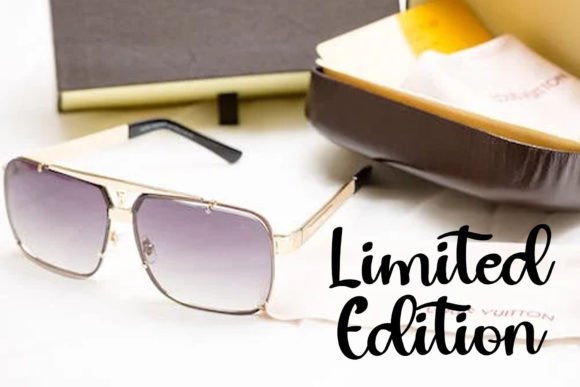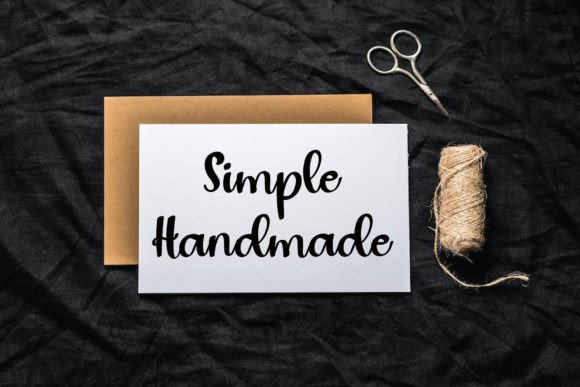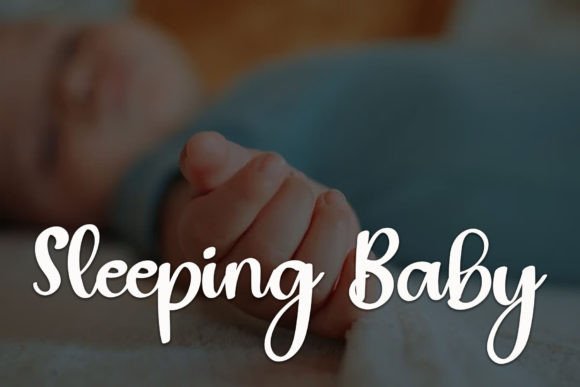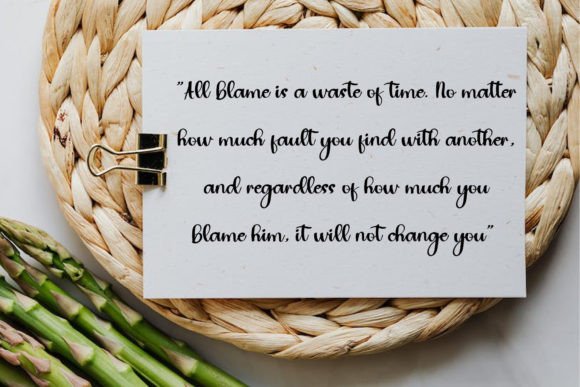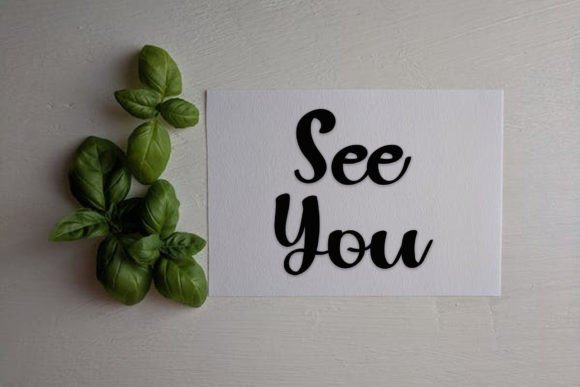
Brainly Font: Elevate Your Designs with a Timeless Classic
Are you tired of using the same old fonts in your designs? Look no further than Brainly Font, a stylish handwritten font that brings a touch of elegance and sophistication to any project. Inspired by timeless classic calligraphy, Brainly Font is a contemporary and impeccably formed font that is sure to enhance the beauty of your designs.
What Makes Brainly Font Special?
Brainly Font is a carefully crafted font that boasts a balanced and varied design. Its unique blend of classic and modern elements makes it perfect for a wide range of projects, from branding and advertising to packaging and digital media. With its PUA (Private Use Area) encoding, Brainly Font gives you easy access to a vast array of glyphs and ligatures, allowing you to add an extra layer of creativity and flair to your designs.
The Inspiration Behind Brainly Font
Brainly Font draws inspiration from the world of classic calligraphy, where the art of beautiful handwriting is revered. The font’s design is rooted in traditional calligraphic techniques, yet it has been carefully adapted to meet the demands of modern design. The result is a font that is both timeless and contemporary, with a unique character that sets it apart from more mundane fonts.
Key Features of Brainly Font
- PUA Encoding: With PUA encoding, you can access a wide range of glyphs and ligatures, giving you the freedom to create unique and complex designs.
- Handwritten Style: Brainly Font boasts a beautiful, handwritten style that adds a touch of warmth and personality to any project.
- Balanced and Varied Design: The font’s balanced and varied design makes it perfect for a wide range of projects, from text-based designs to titles and headings.
- Contemporary Atmosphere: Brainly Font has a distinctly contemporary feel, making it ideal for designers who want to create modern and stylish designs.
How to Use Brainly Font in Your Designs
Brainly Font is incredibly versatile and can be used in a wide range of design projects. Here are just a few ideas to get you started:
- Branding and Advertising: Use Brainly Font to create eye-catching logos, advertisements, and marketing materials that showcase your brand’s personality.
- Packaging Design: Add a touch of elegance to your product packaging with Brainly Font, perfect for luxury brands and high-end products.
- Digital Media: Use Brainly Font to create engaging social media graphics, blog posts, and website content that stands out from the crowd.
Why Choose Brainly Font?
With so many fonts available, why choose Brainly Font? Here are just a few reasons why Brainly Font stands out from the rest:
- Unique Design: Brainly Font boasts a unique and distinctive design that sets it apart from more common fonts.
- High-Quality Encoding: With PUA encoding, you can access a wide range of glyphs and ligatures, giving you the freedom to create complex and beautiful designs.
- Easy to Use: Brainly Font is incredibly easy to use, with a simple and intuitive design that makes it perfect for designers of all skill levels.